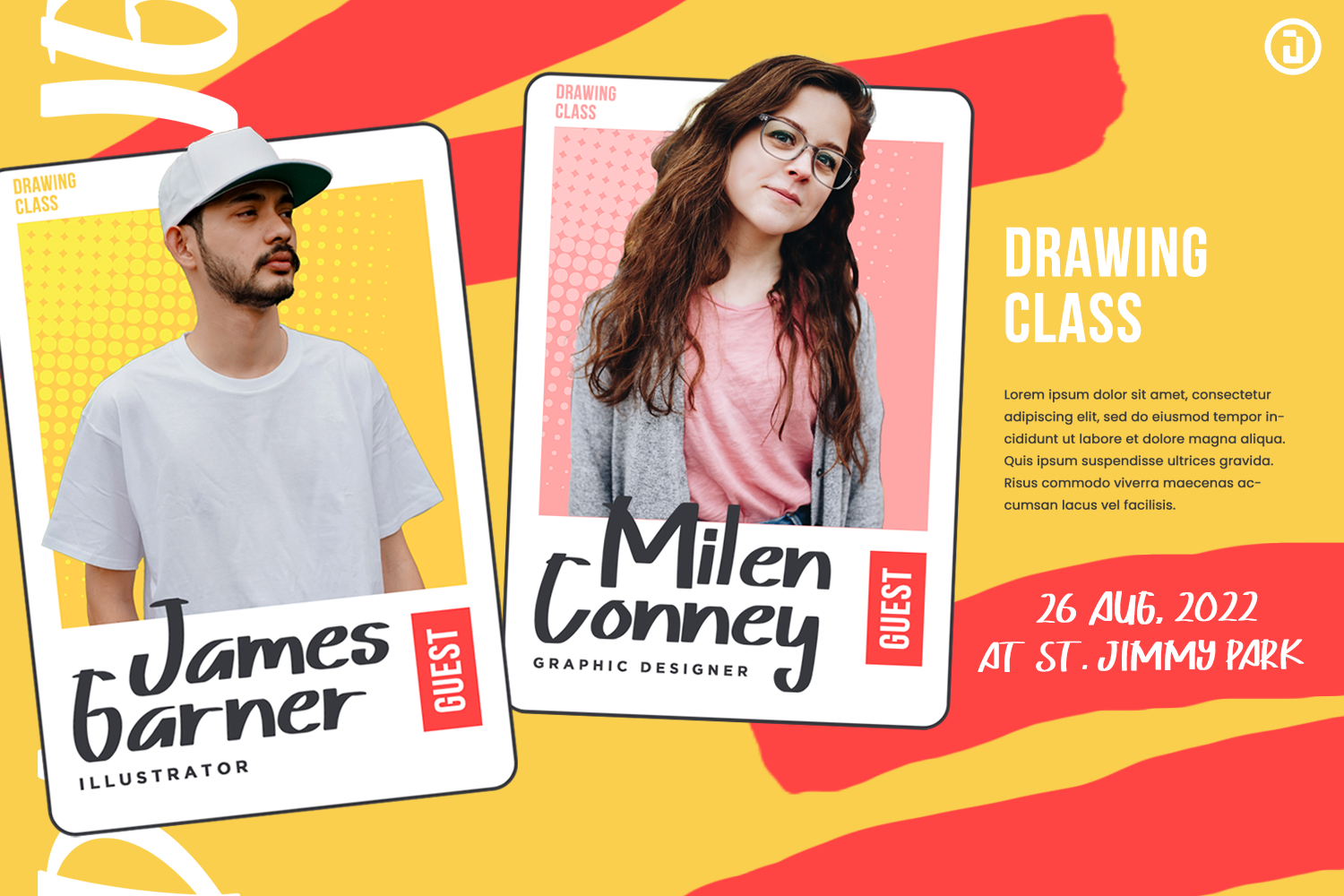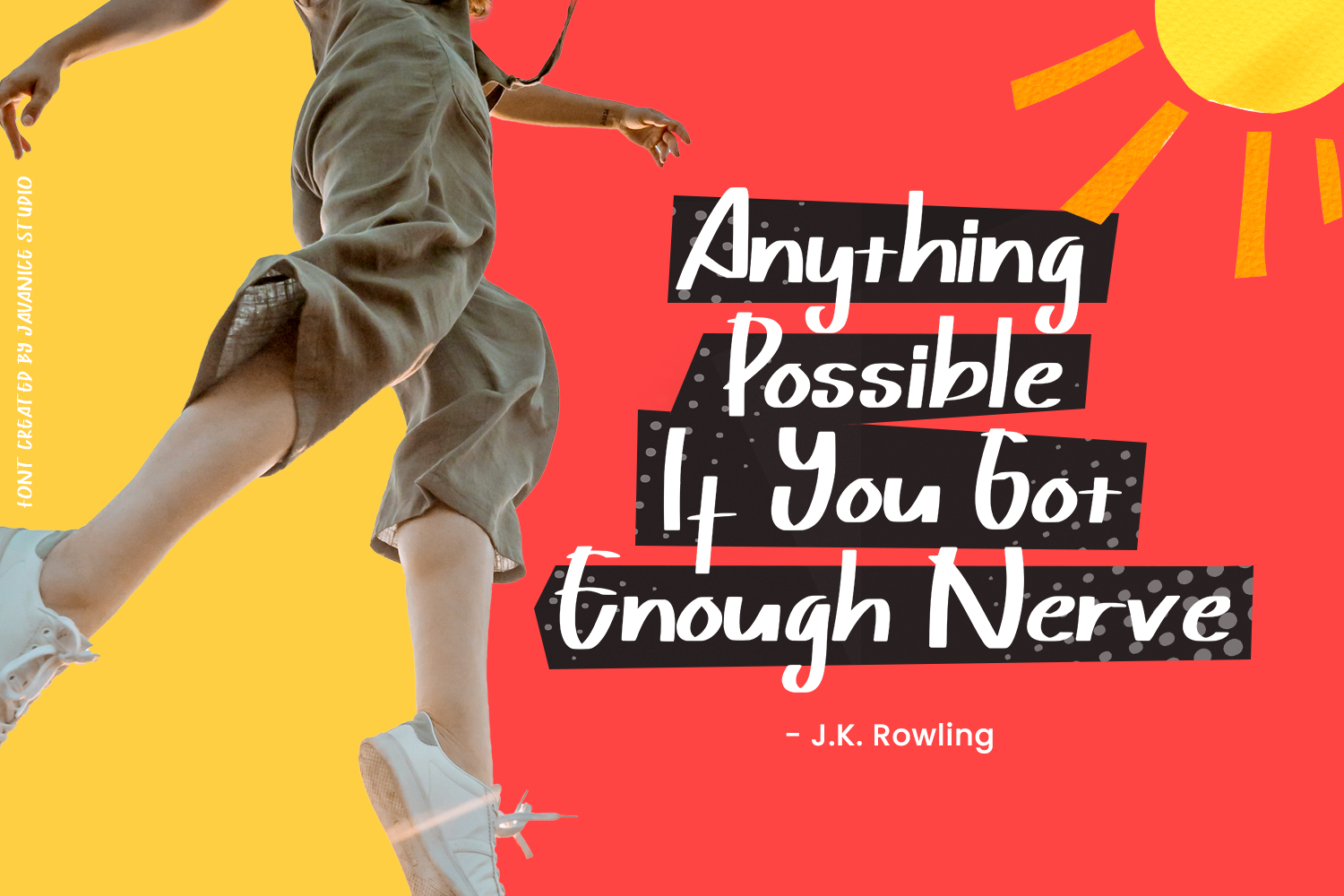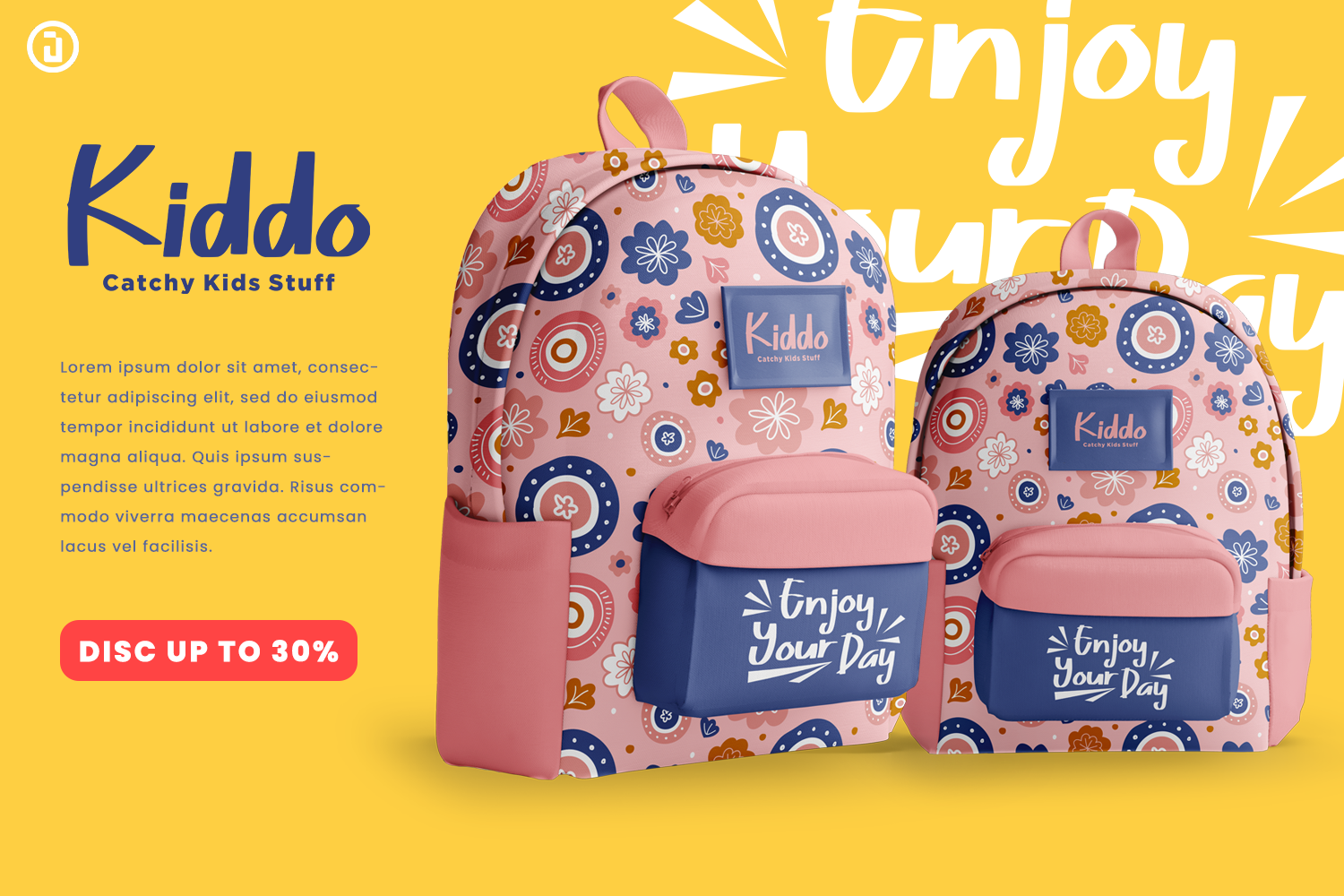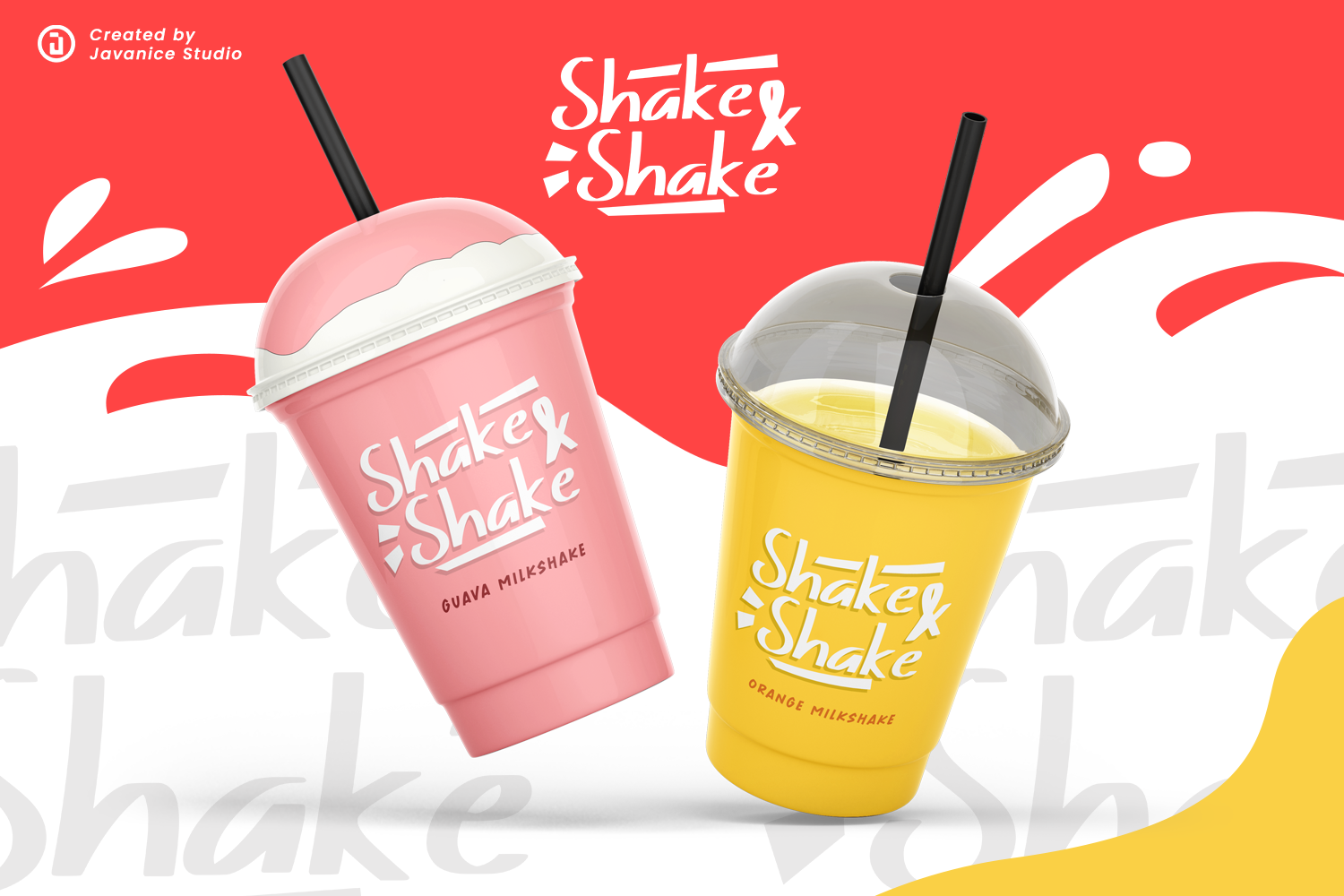
SoyQuick Free Font
Introducing SoyQuick Free Font, a charmingly clean, relaxed, and friendly handwritten font. With its neat and simple style, this versatile typeface is a perfect fit for a wide range of designs, making it your go-to font for any occasion! Embrace the enchanting appeal of Soyquick and watch it become your favorite companion in all your creative endeavors. This free typeface was designed by a talented Javanice Studio. If you like it don’t forget to check out the full version.